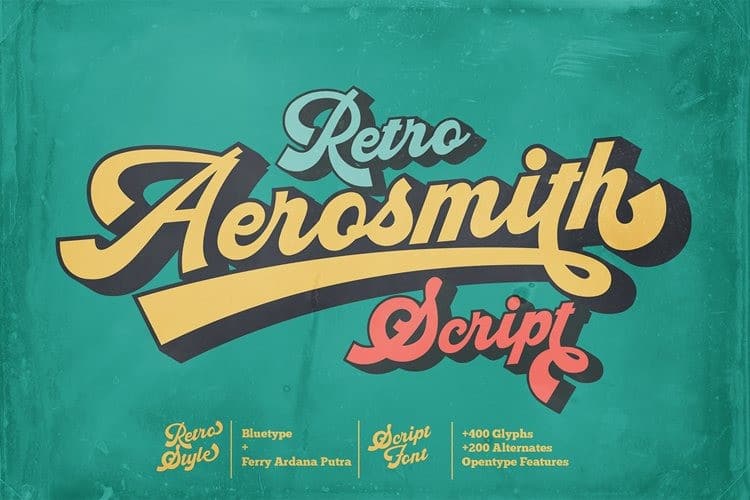
Aerosmith Script Font
Aerosmith Script Font comes with a retro, modern and vintage touch to it. Inspired by dynamic culture, sign and badge designs. Made from font designer named Bluetype. Aerosmith is a bold script typeface. It’s the three musketeers! Use this typeface and you will make a retro design with ease!
Combined your design with hundreds of stylistic alternates and elegant swashes which is included in this typeface, This retro typeface is really perfect for logo design, t-shirt, vintage and retro badge, vintage quotes, branding, packaging, quote etc.